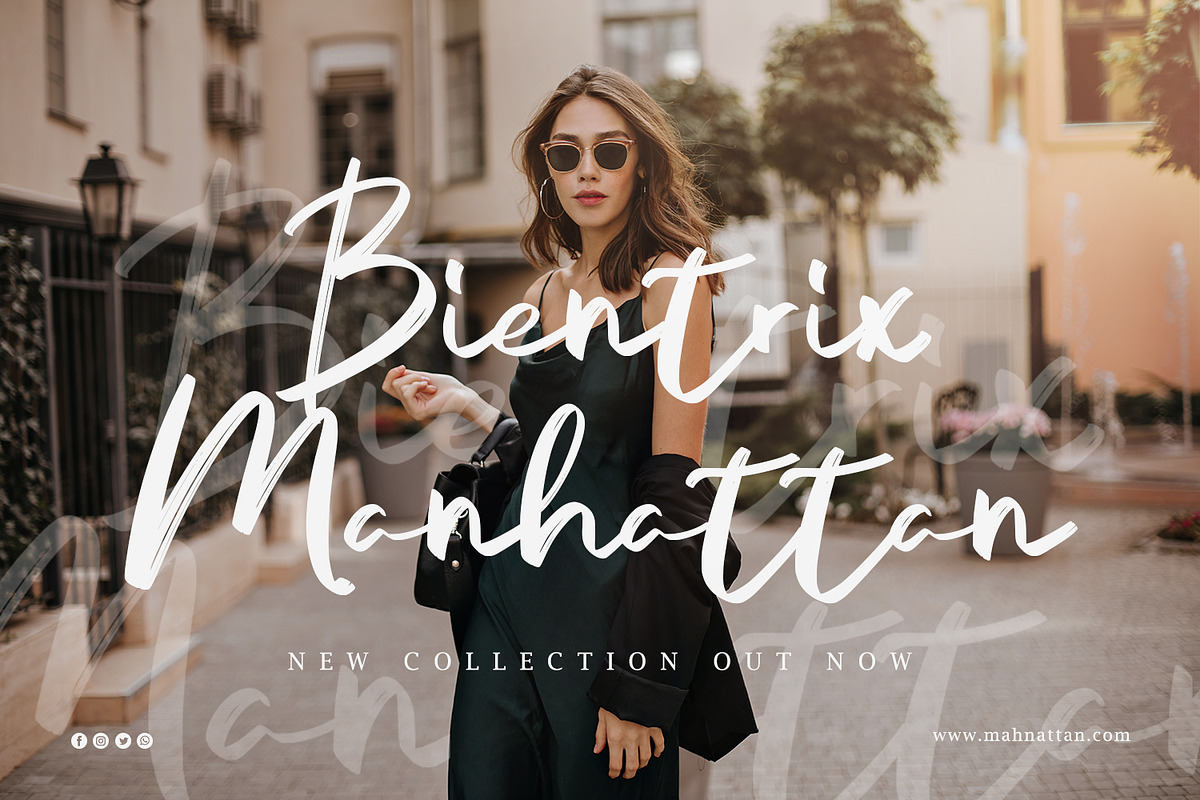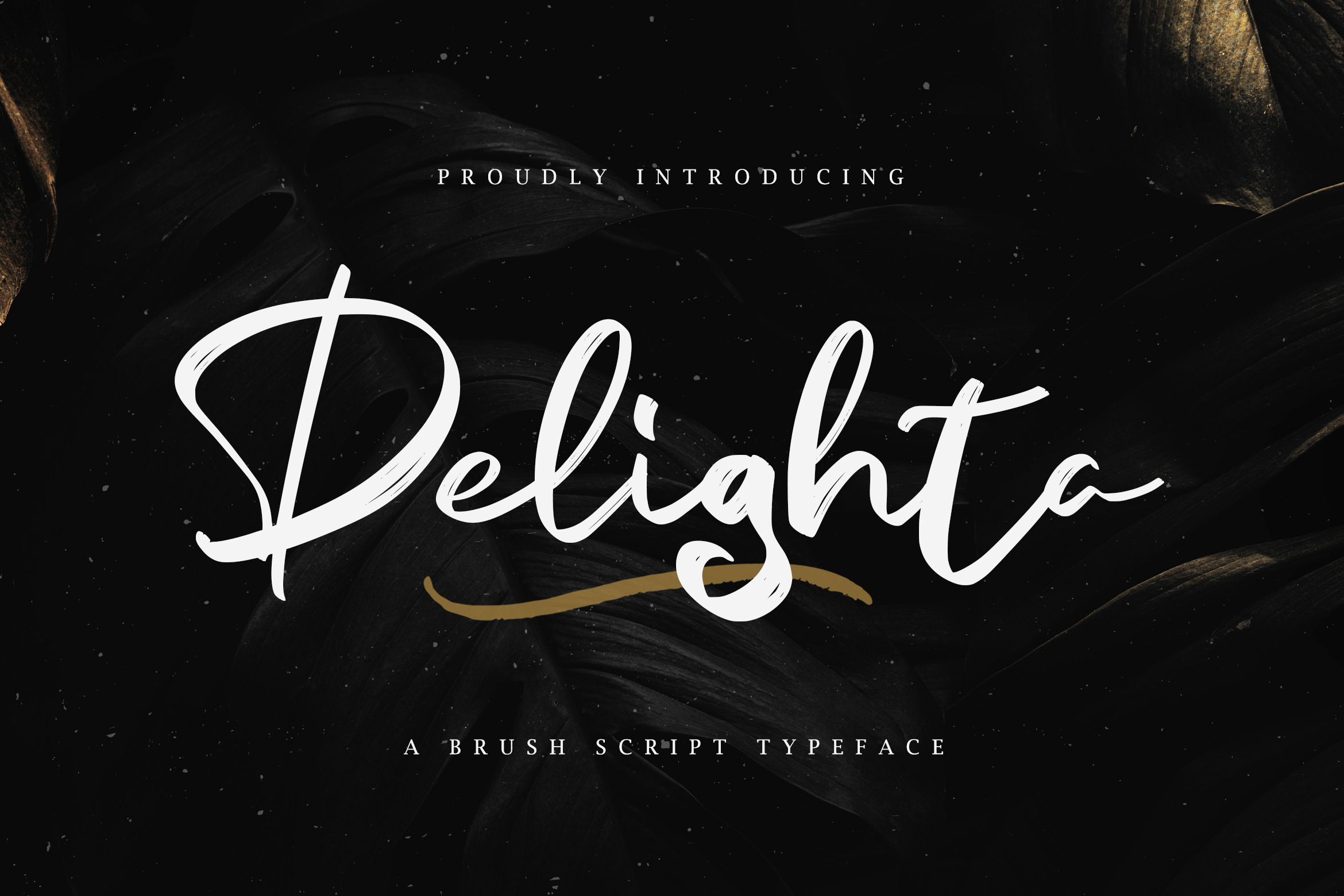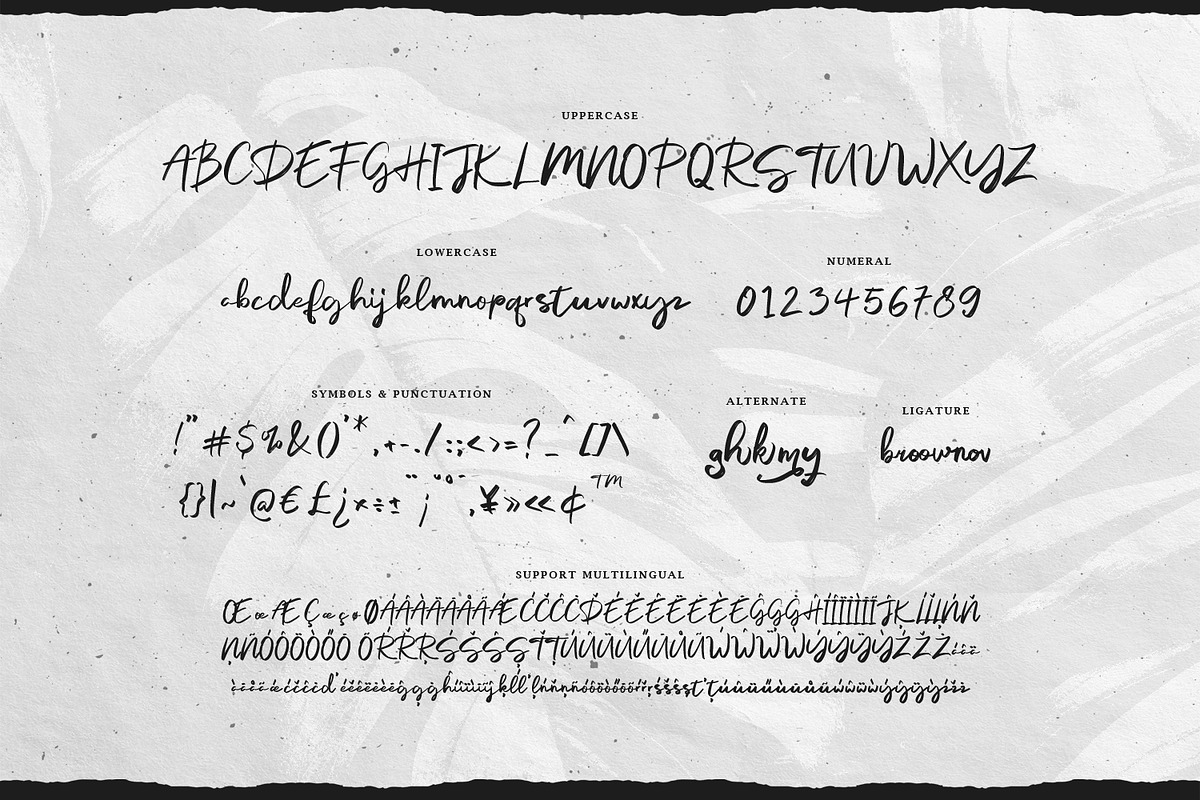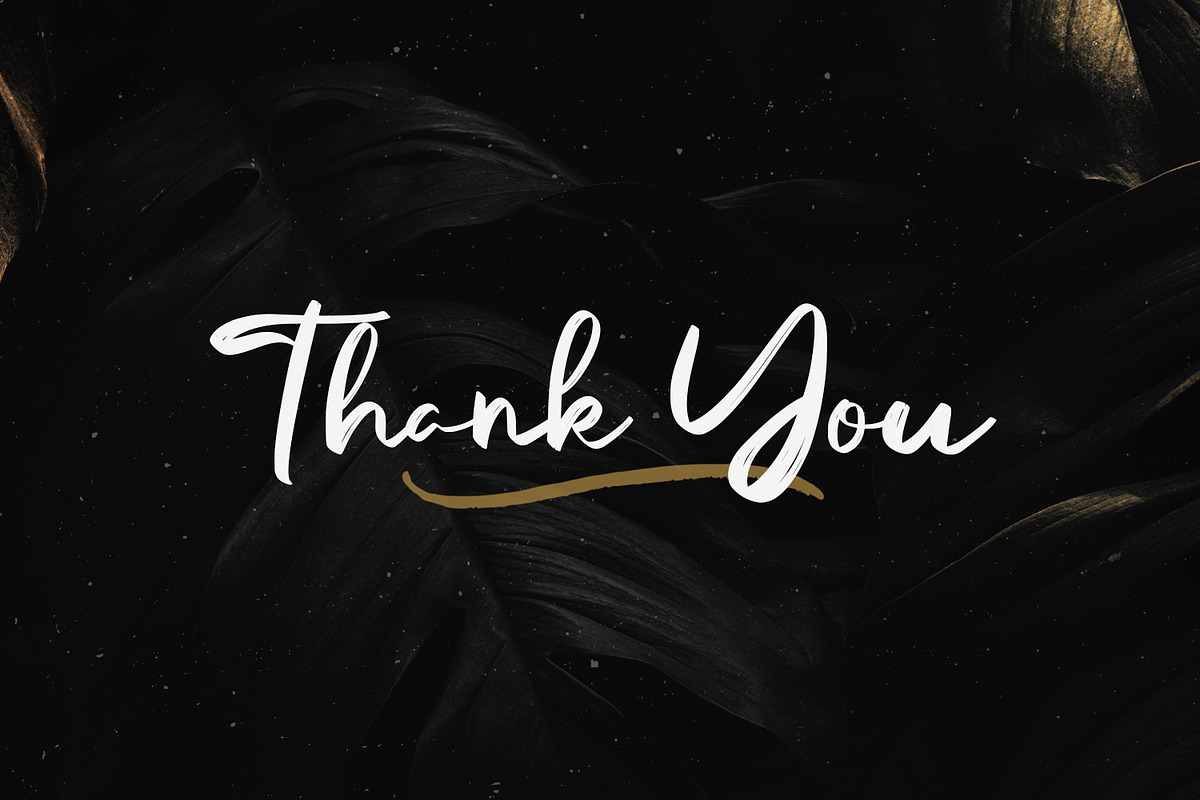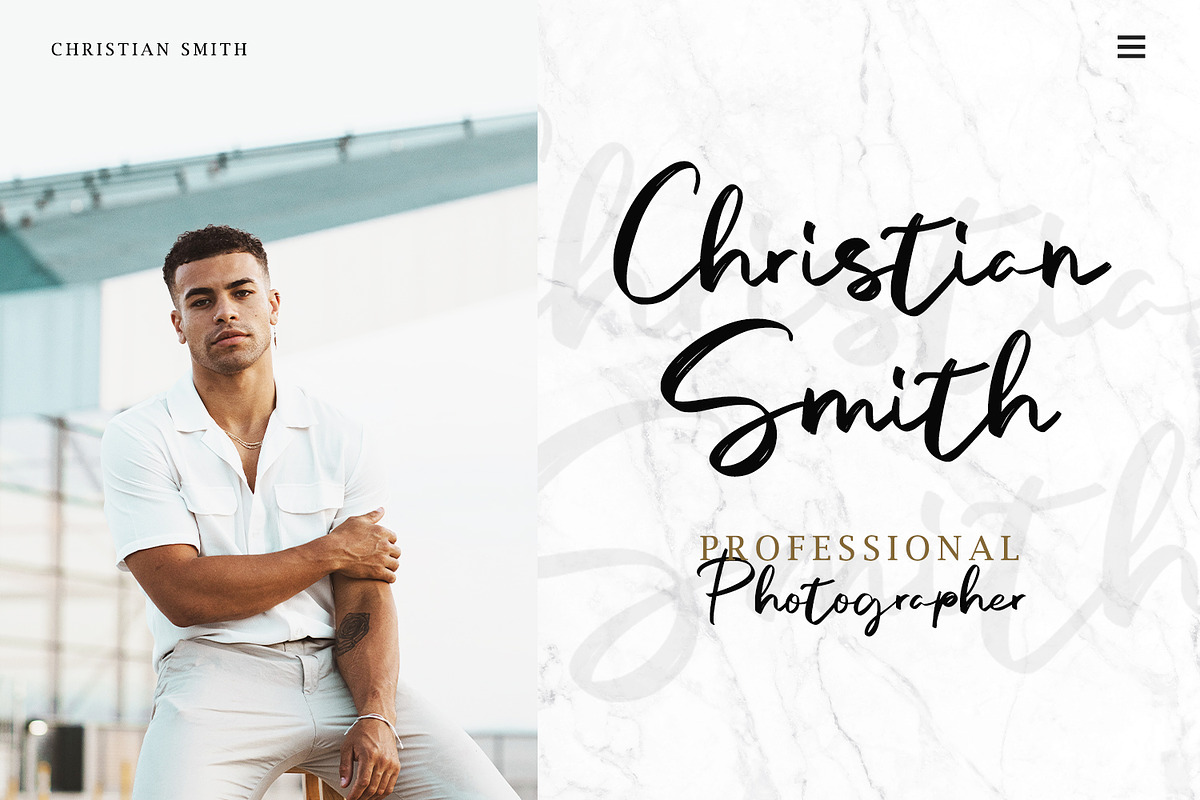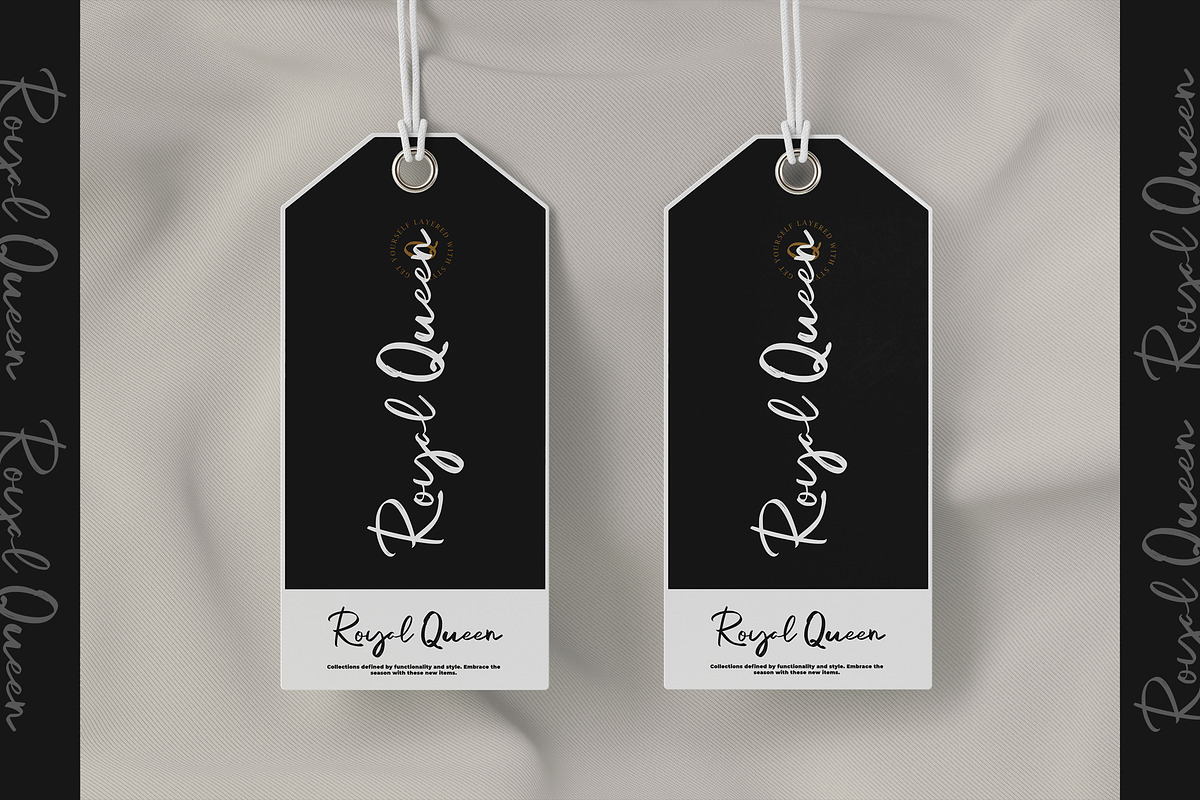
Delighta - Brush Script Font
Delighta - Brush Script Font So beautiful on invitations like greeting cards, branding materials, business cards, quotes, posters, and more!
- Tons of glyphs
- Alternates and Ligatures
- Punctional
- Fonts include Multilingual Support